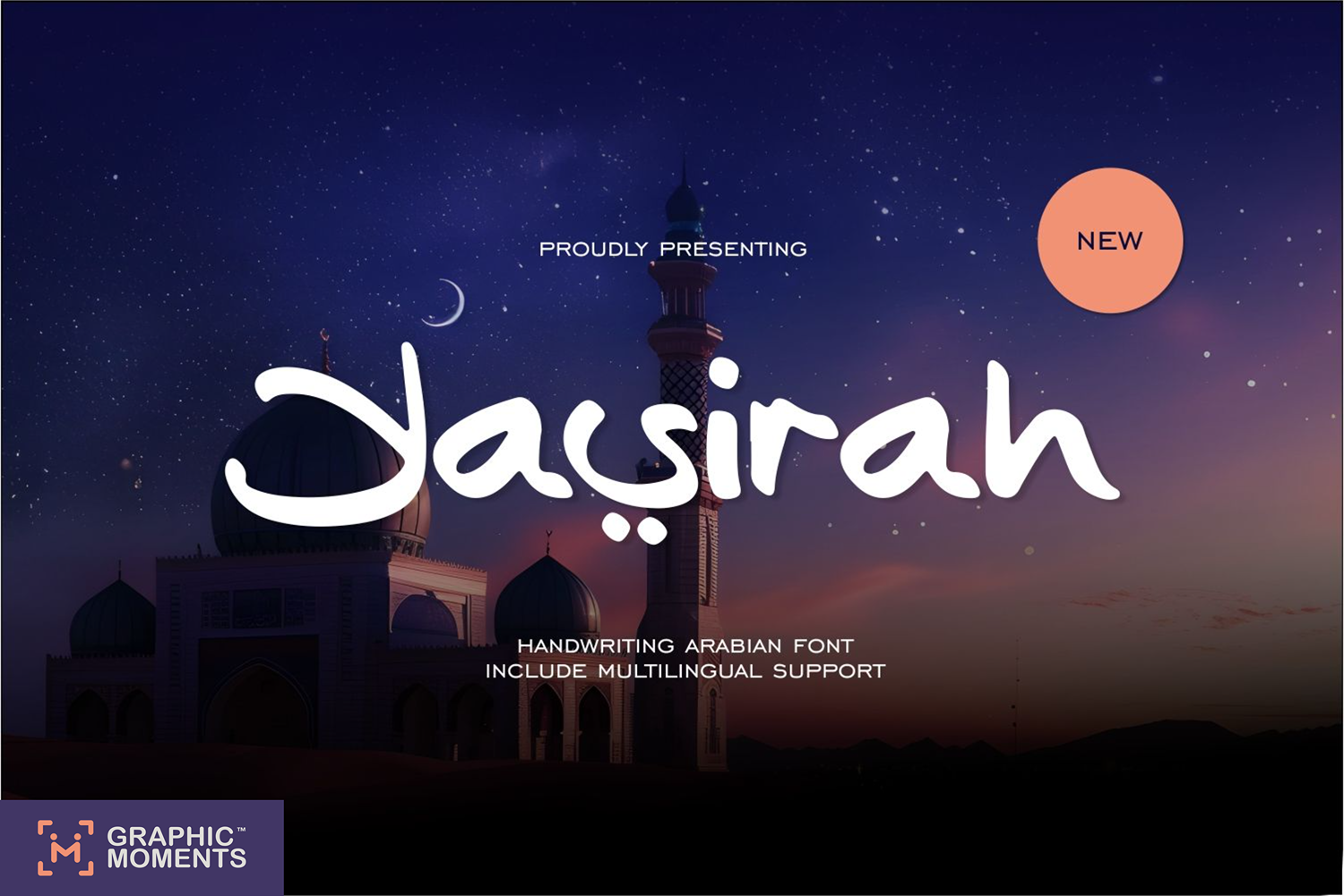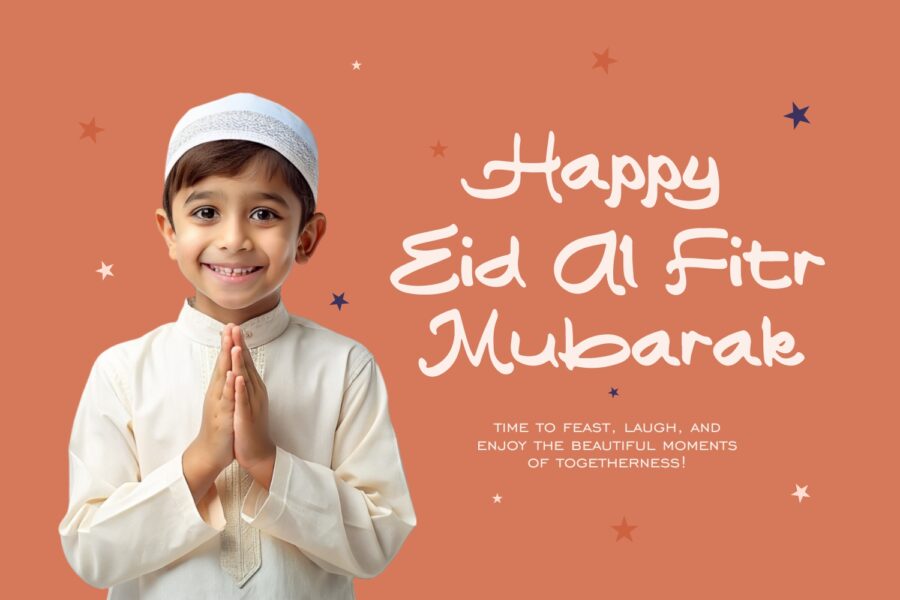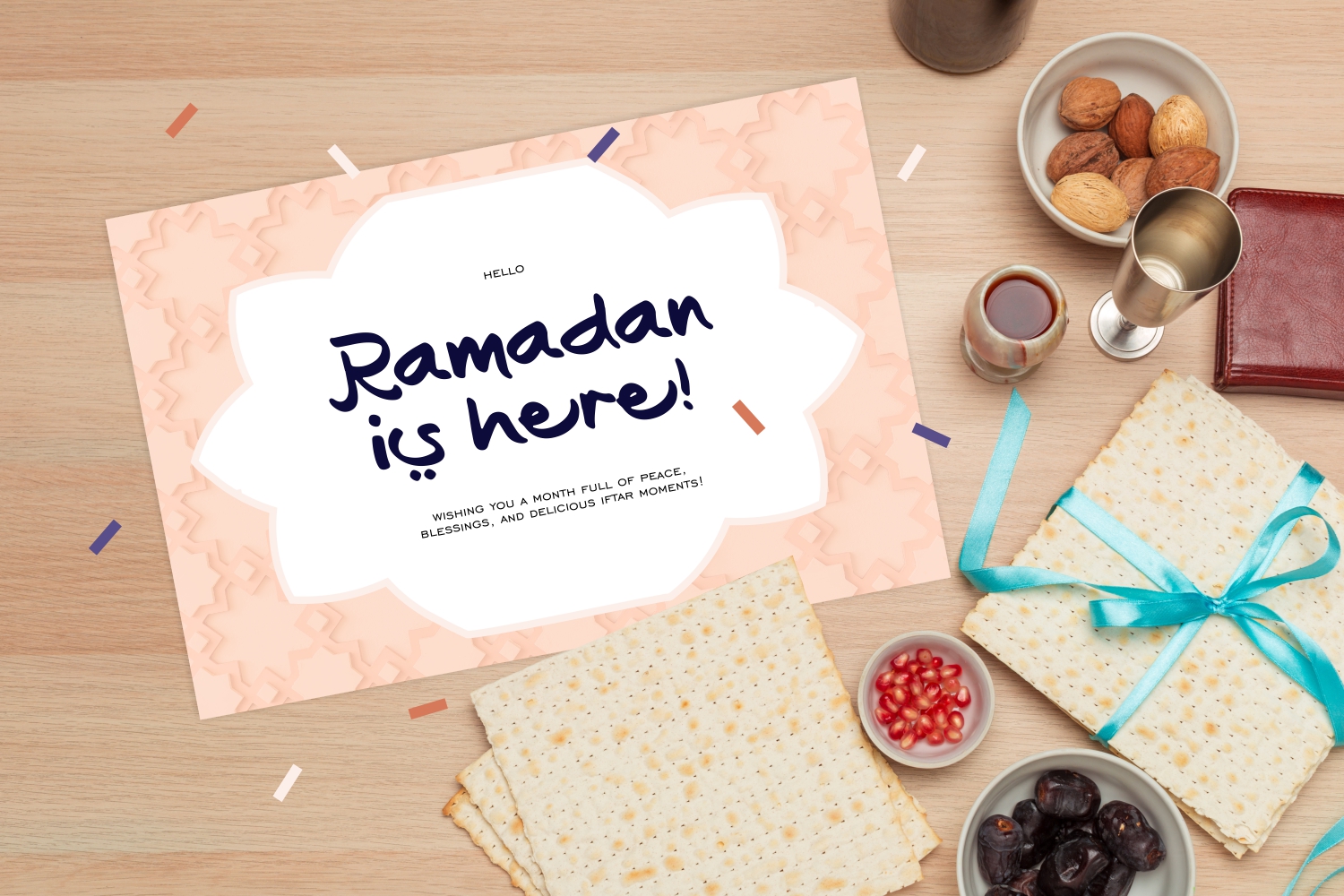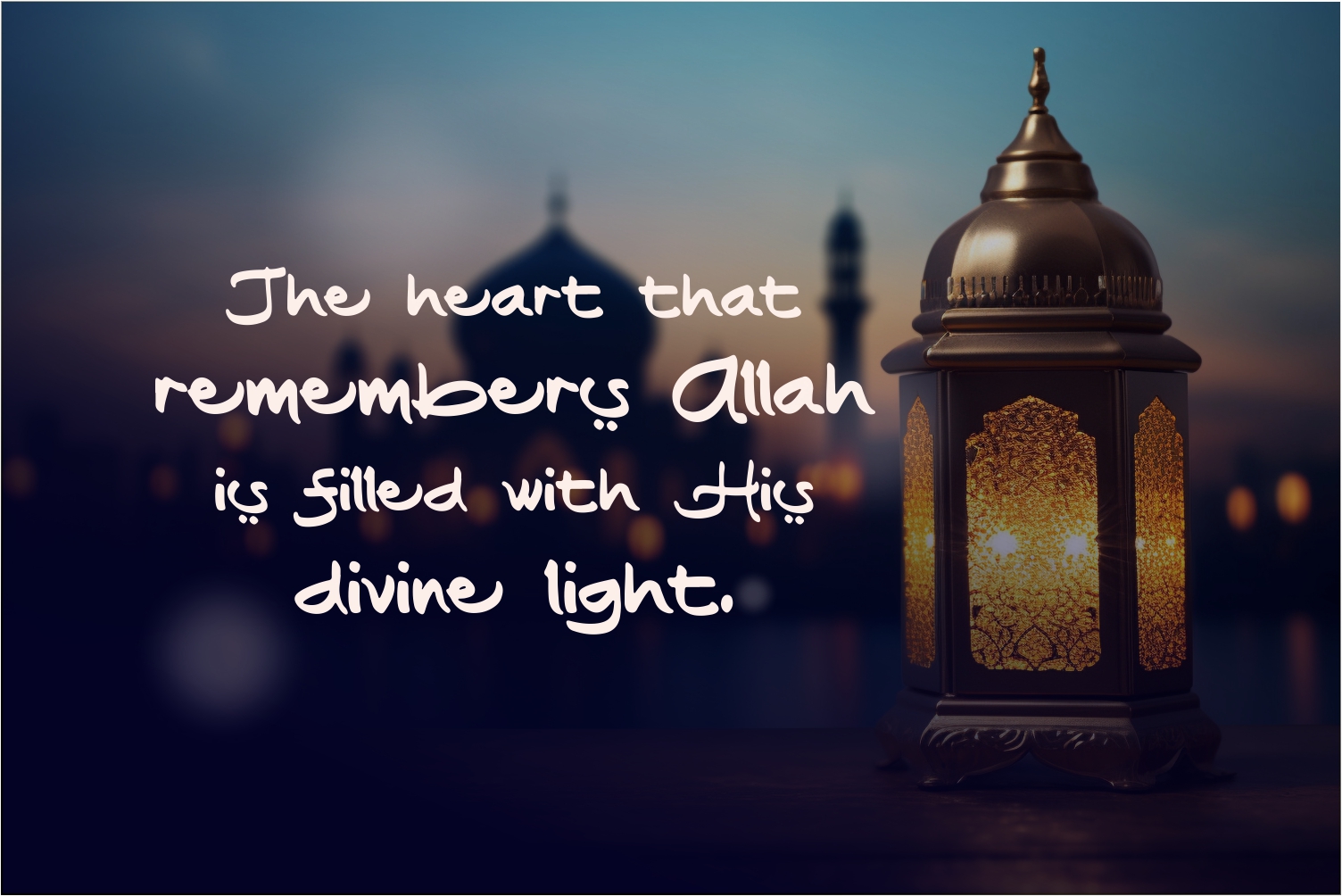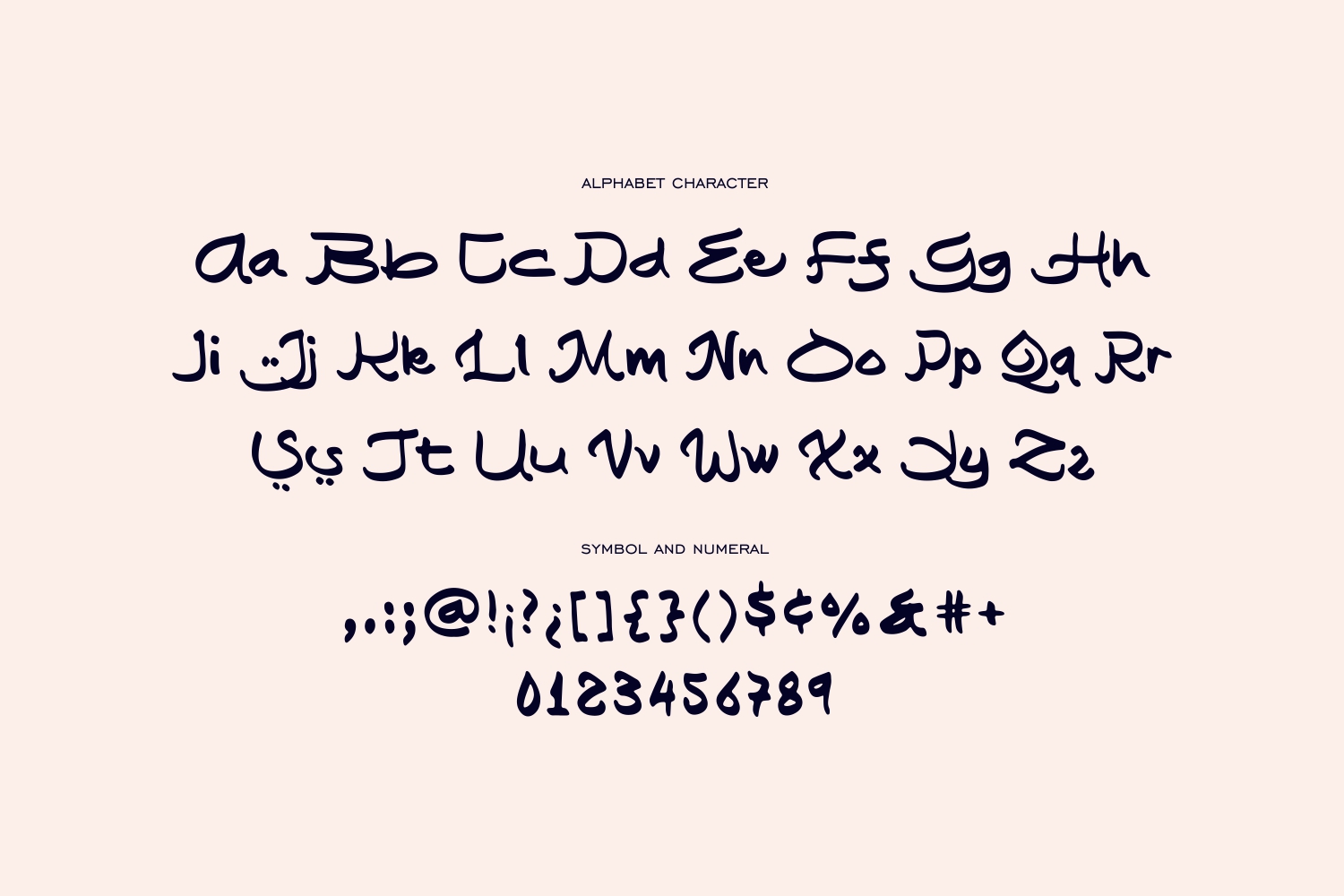
Yasirah is a handwriting Arabian-style font that radiates warmth and authenticity. With its smooth curves and natural flow, it captures the essence of handwritten lettering while carrying a touch of Middle Eastern character. Perfect for festive greetings, cultural branding, and social media visuals, Yasirah brings a personal and inviting charm to any design.
Supporting multilingual characters, Yasirah is highly versatile and adaptable for global audiences. It is an excellent choice for Ramadan and Eid projects, event posters, food packaging, and inspirational quotes, ensuring your designs stand out with a blend of tradition and modern creativity.
Yasirah